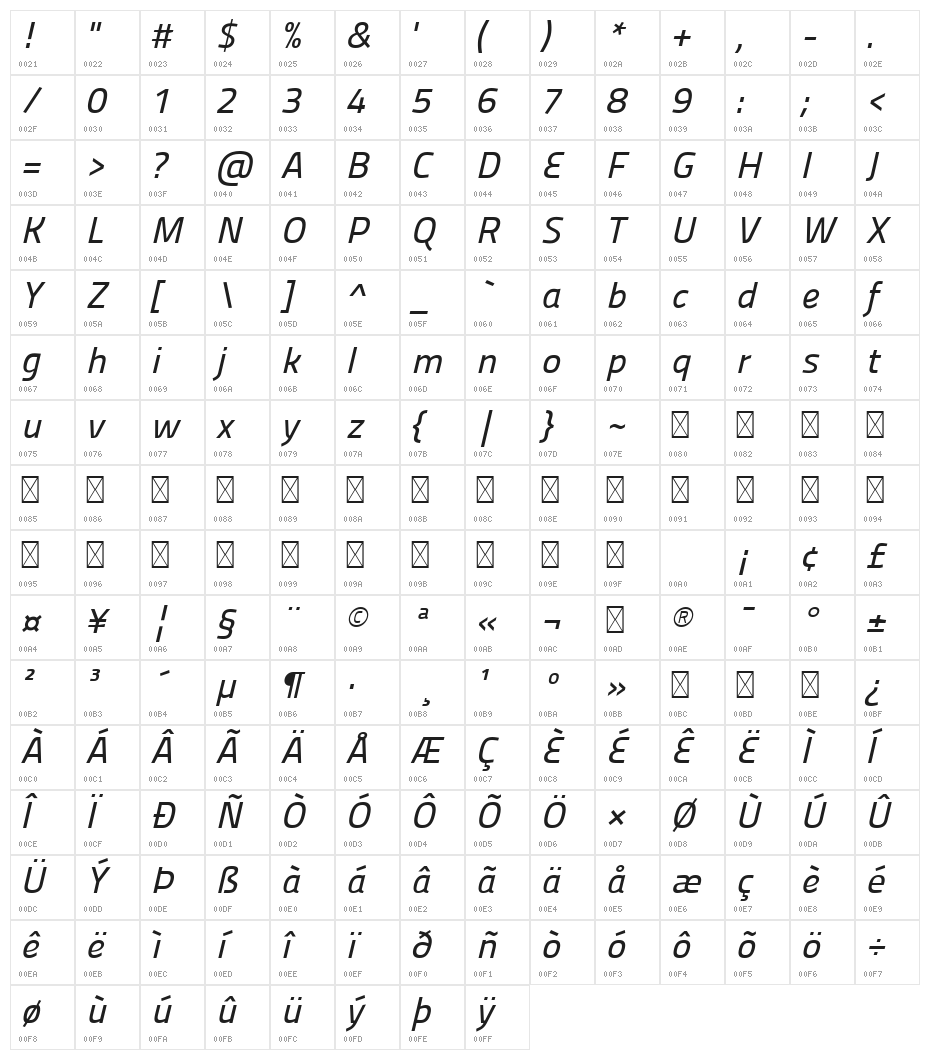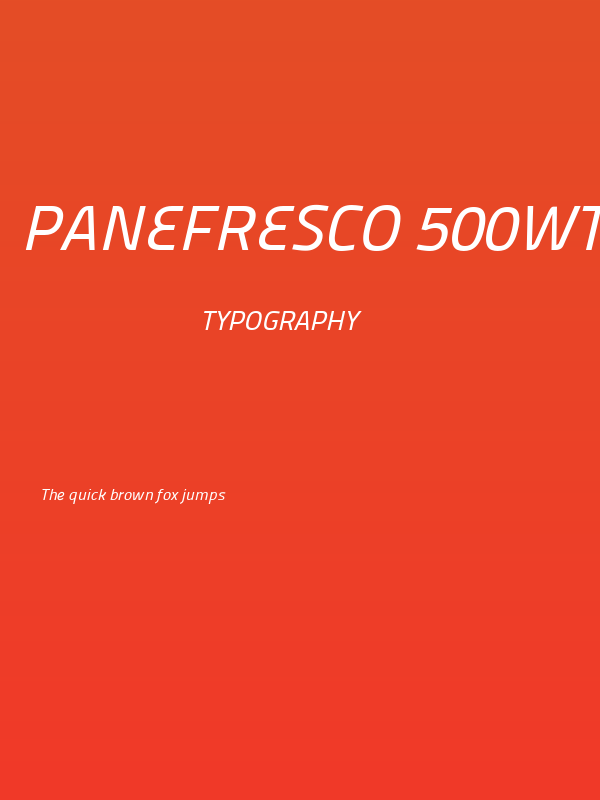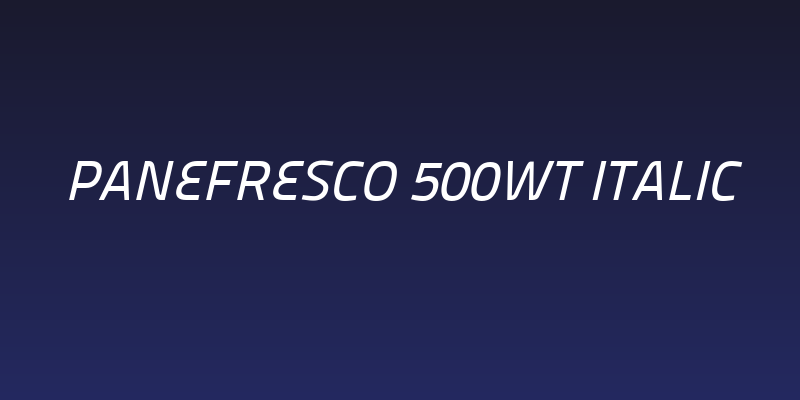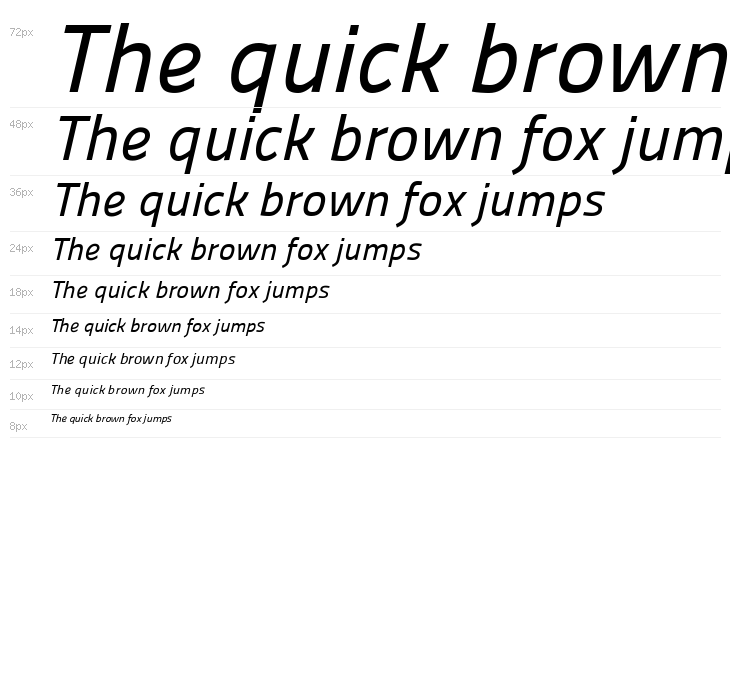
Panefresco 500wt Italic Font
Panefresco 500wt Italic Description
This font features a sleek and modern design with a slight italic slant, giving it a dynamic and forward-moving appearance. The characters are well-proportioned with a consistent stroke width, providing a clean and professional look. The uppercase letters are bold and assertive, while the lowercase letters maintain a smooth and approachable style. The numerals are clear and easy to read, making them suitable for various applications. Special characters are distinct and well-integrated into the overall design, ensuring versatility in usage. The font's overall aesthetic is contemporary, making it ideal for modern branding and design projects.
| Proposed Projects | Ideal for branding, advertising, digital media, and editorial design projects. |